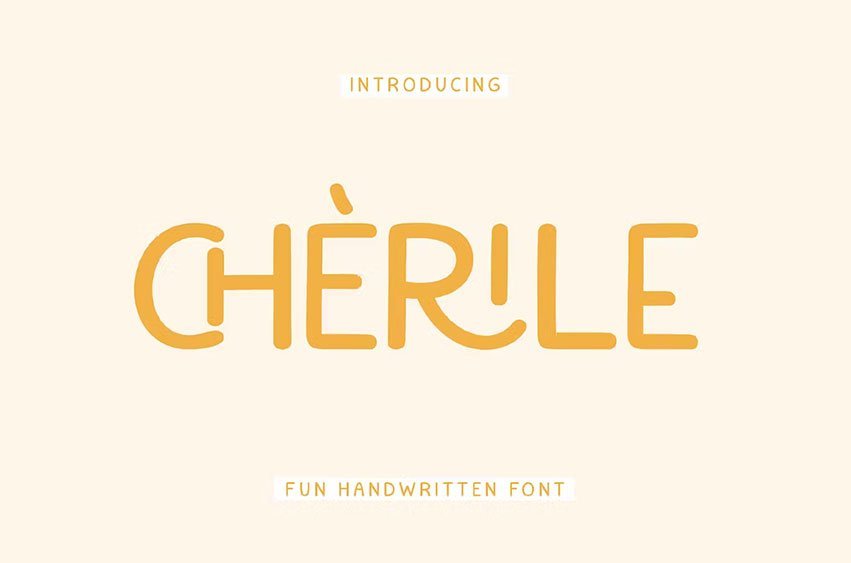
Introducing “Cherile” – a lively and playful handwritten font that injects a sense of fun and joy into your designs. With its whimsical letterforms and energetic strokes, Cherile adds a delightful and carefree vibe to any project. This font is suitable for branding, business, logos, magazines, and others.